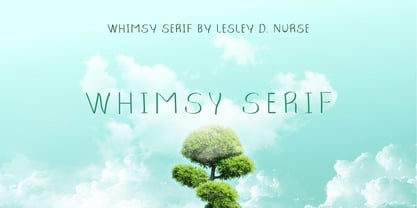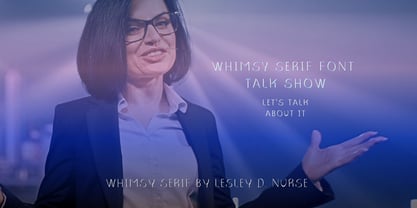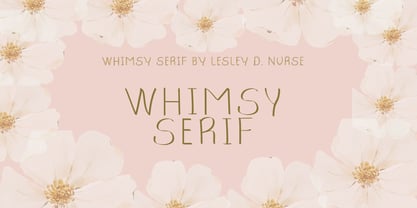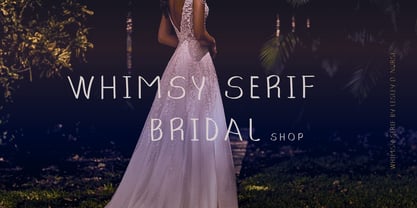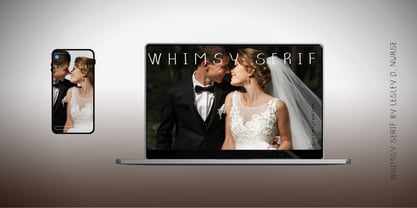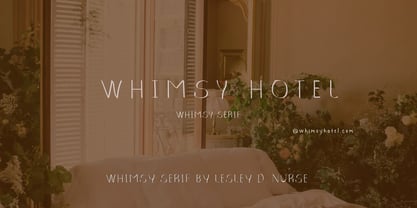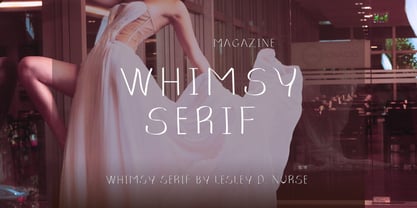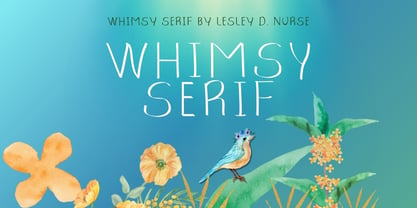
Whimsy Serif
Whimsy Serif – Elevate Every Moment with Editorial Elegance
Whimsy Serif is more than a font—it’s a full-bodied experience for brands that captivate. With graceful curves, refined sophistication, and a timeless charm, this typeface blends classic luxury with modern poise. Whether featured in bridal campaigns, luxury hotels, upscale talk shows, or bespoke product showcases, Whimsy Serif transforms your design into a visual masterpiece.
Perfect for those who demand visual impact, Whimsy Serif draws inspiration from fashion couture, romantic storytelling, and global branding trends. This is the font for big statements, high-impact visuals, and unforgettable impressions.
Whimsy Serif is best suited for:
Luxury Editorials & Bridal Magazines
High-End Hospitality & Boutique Hotels
Talk Shows & Personal Branding
Bespoke Packaging & Stationery
Fashion Campaigns & Digital Showcases
Art-Driven Invitations & Romantic Merchandising
With Whimsy Serif, every detail feels intentional. Elevate your next creative direction with the font that embodies elegance, softness, and refined storytelling.